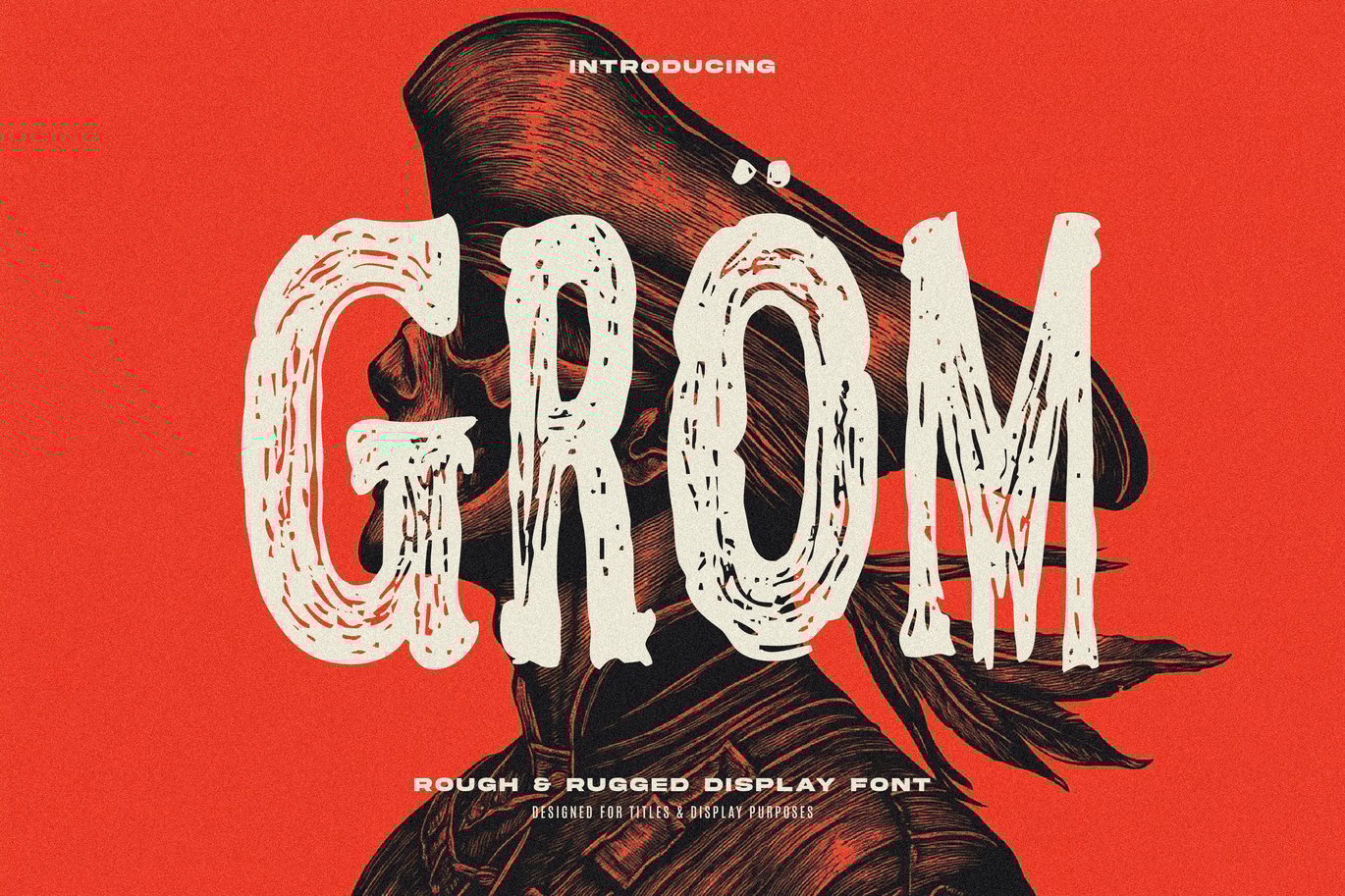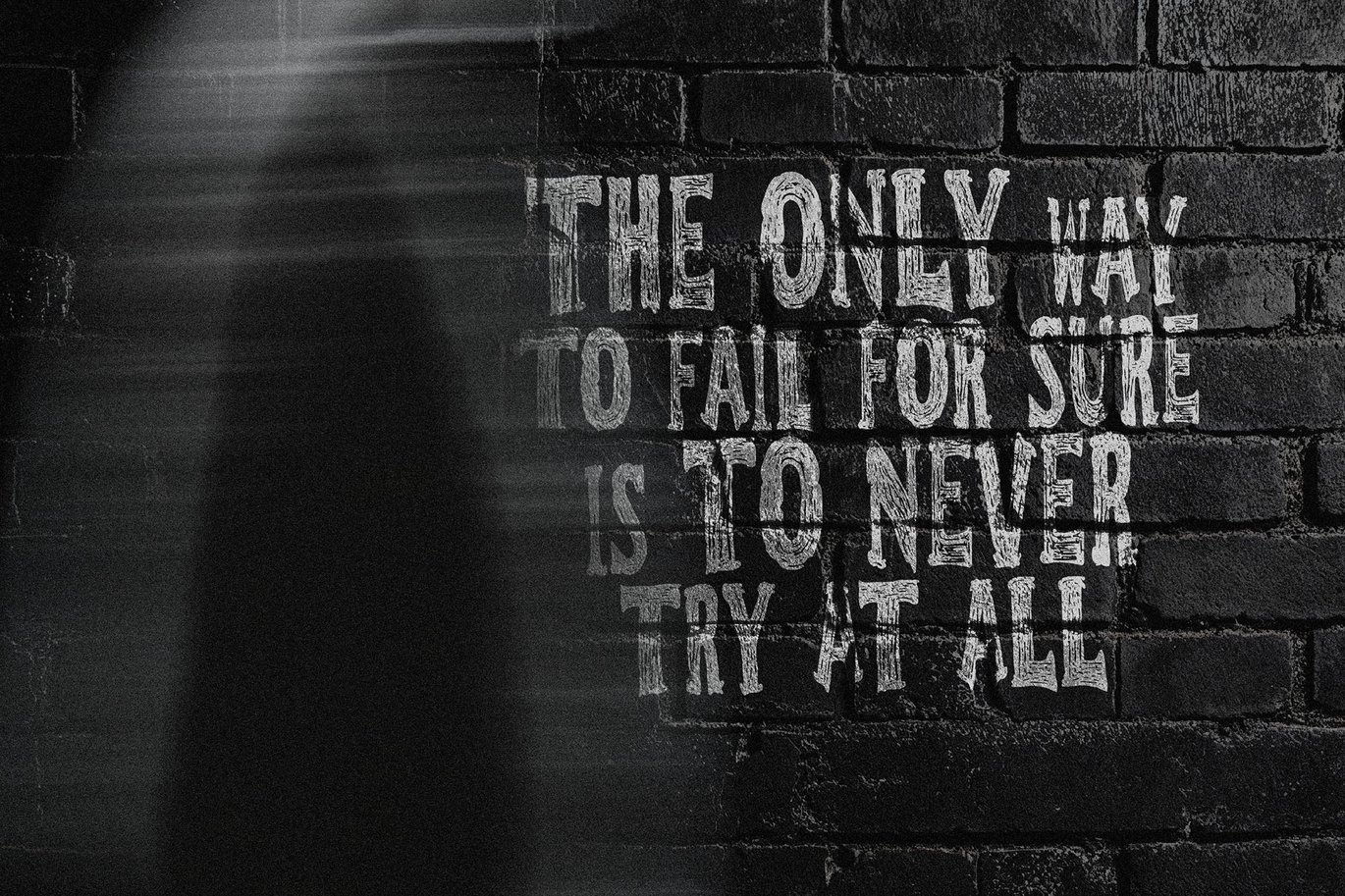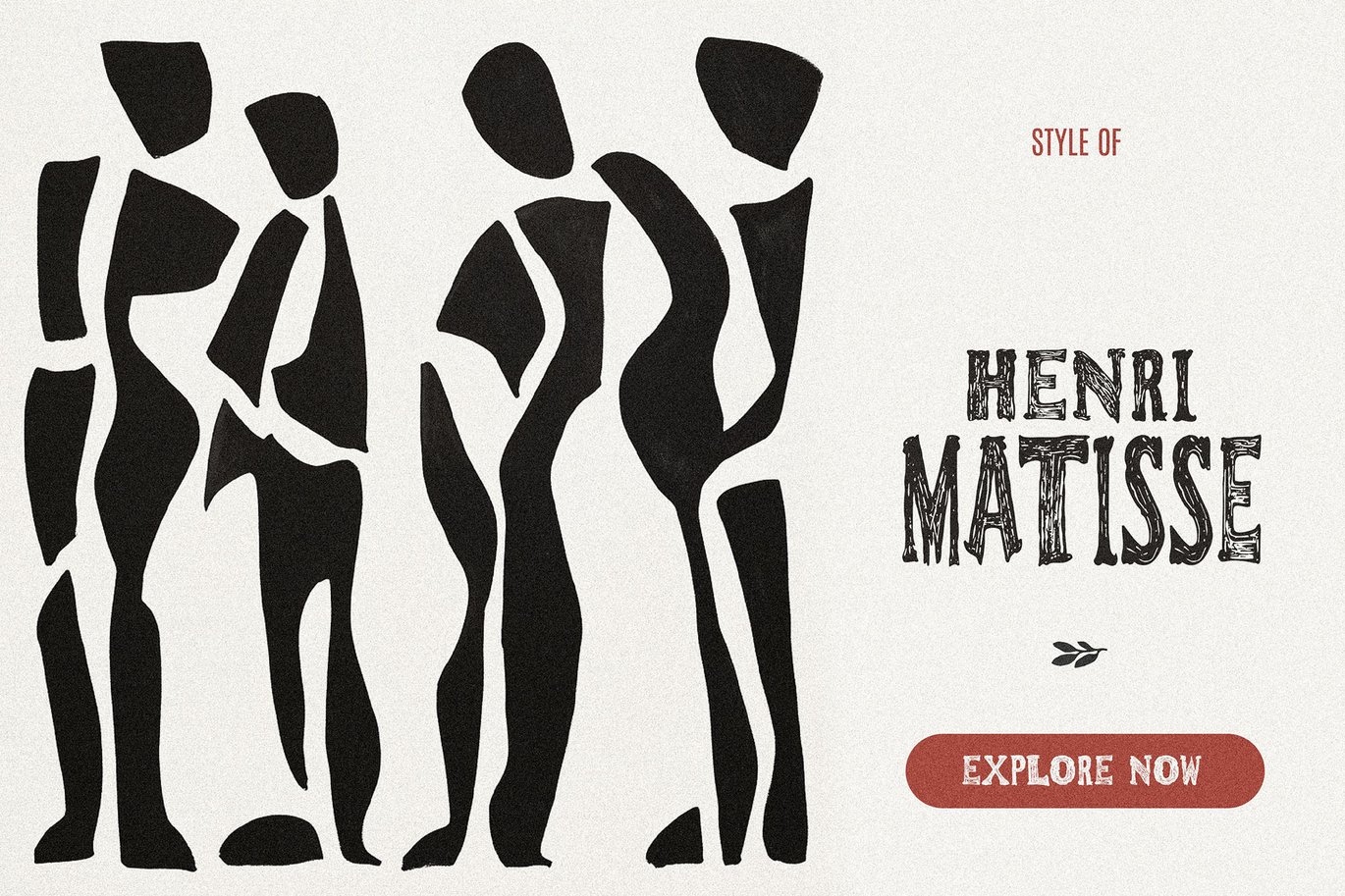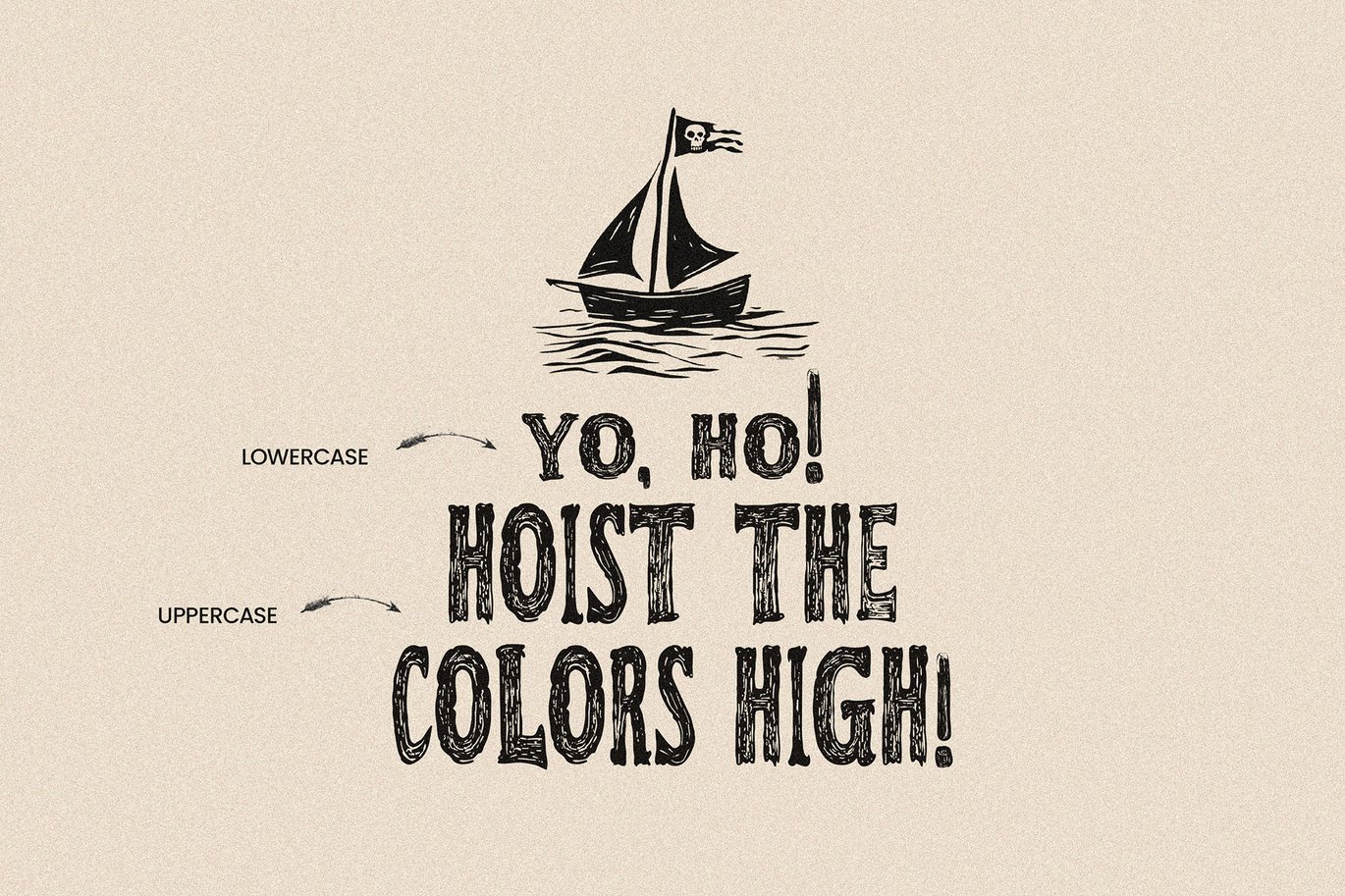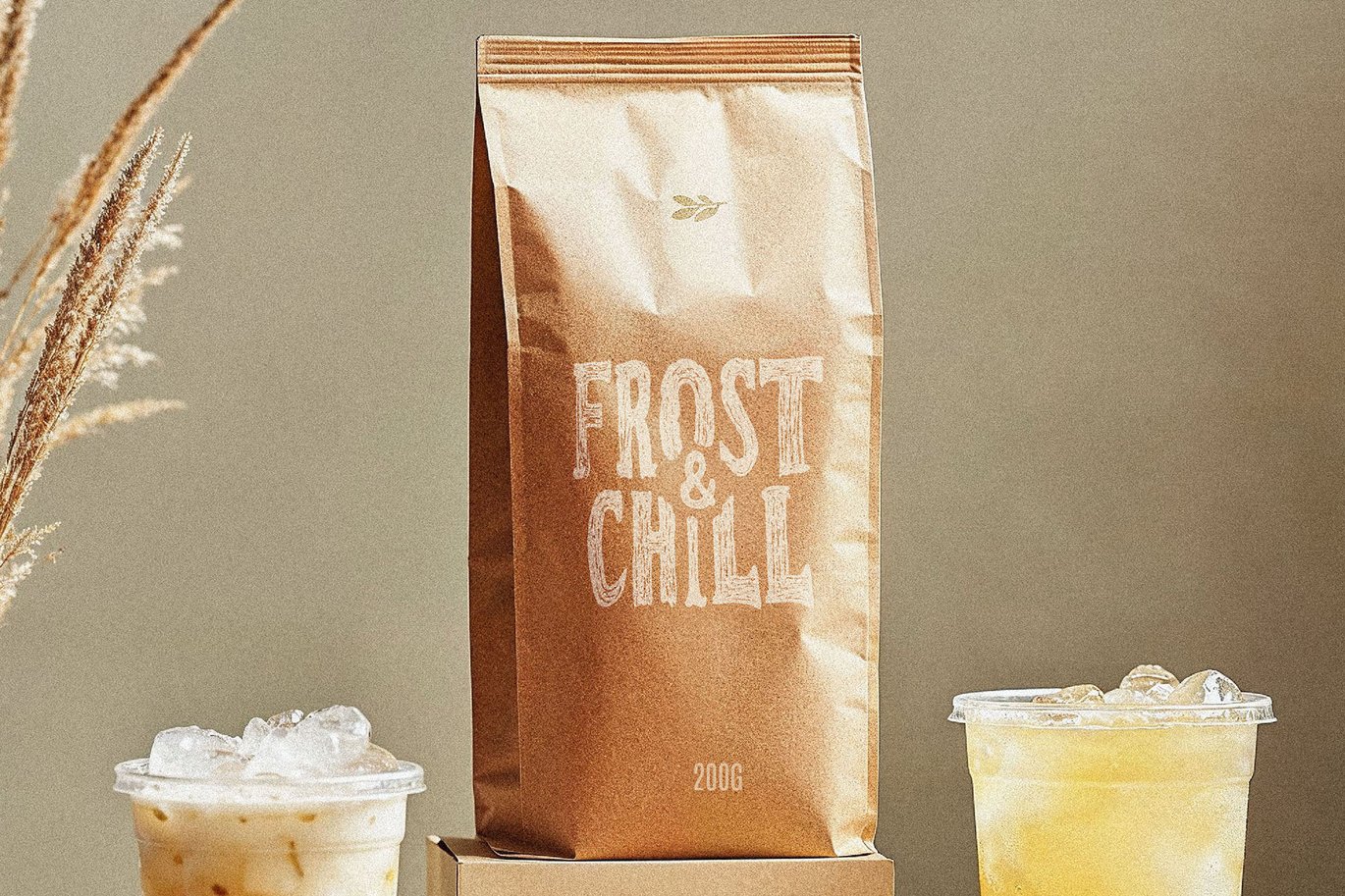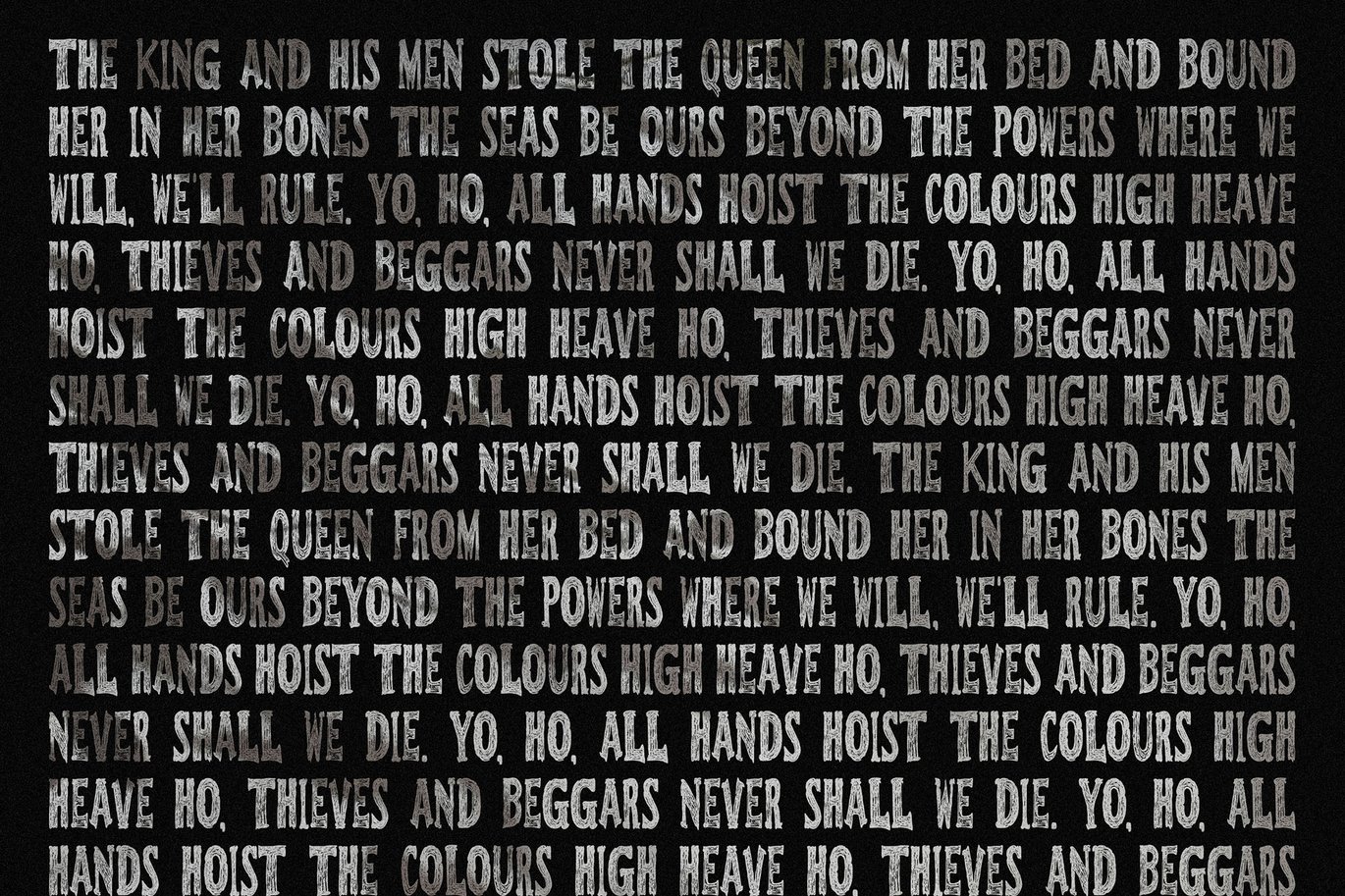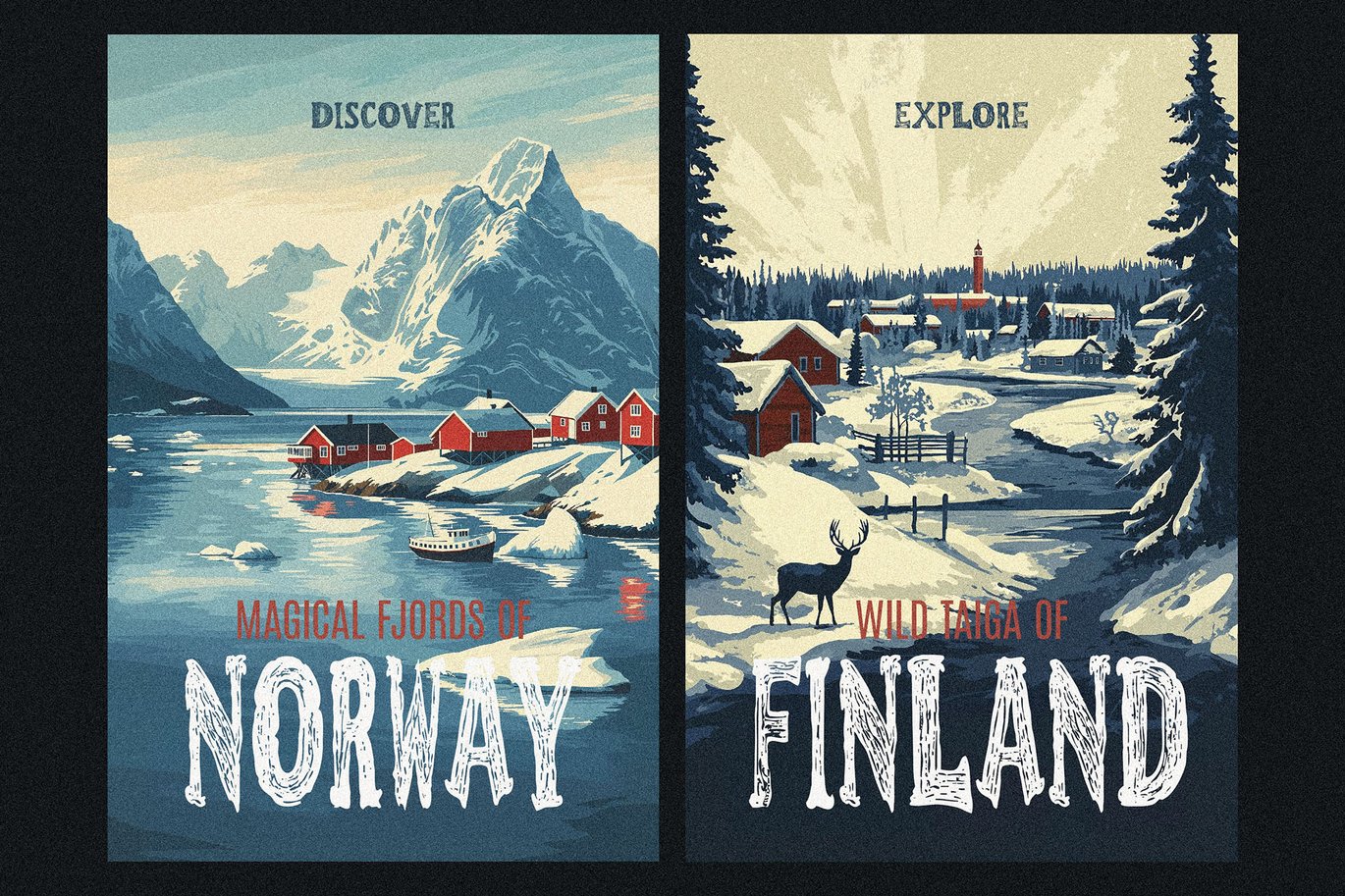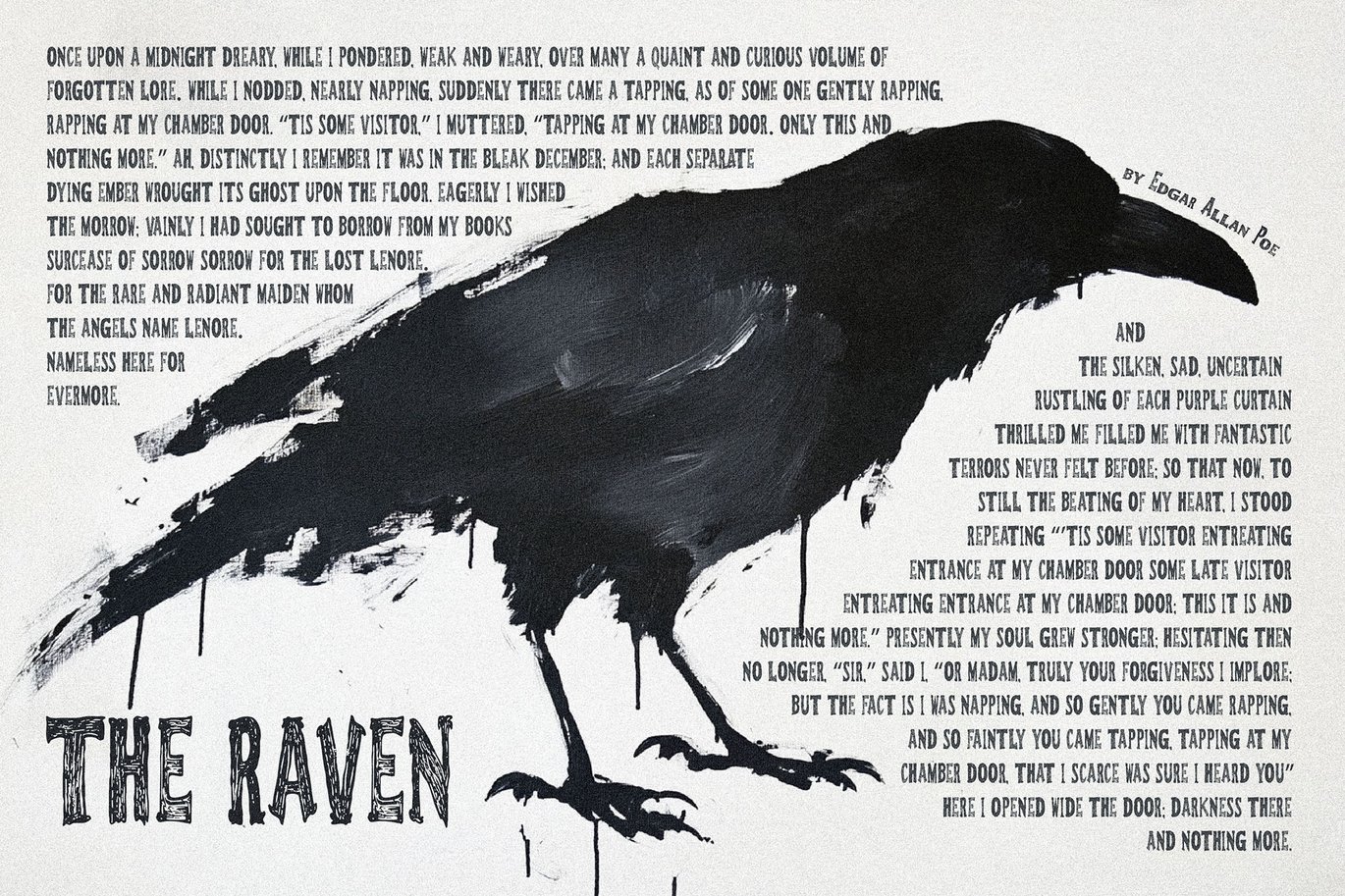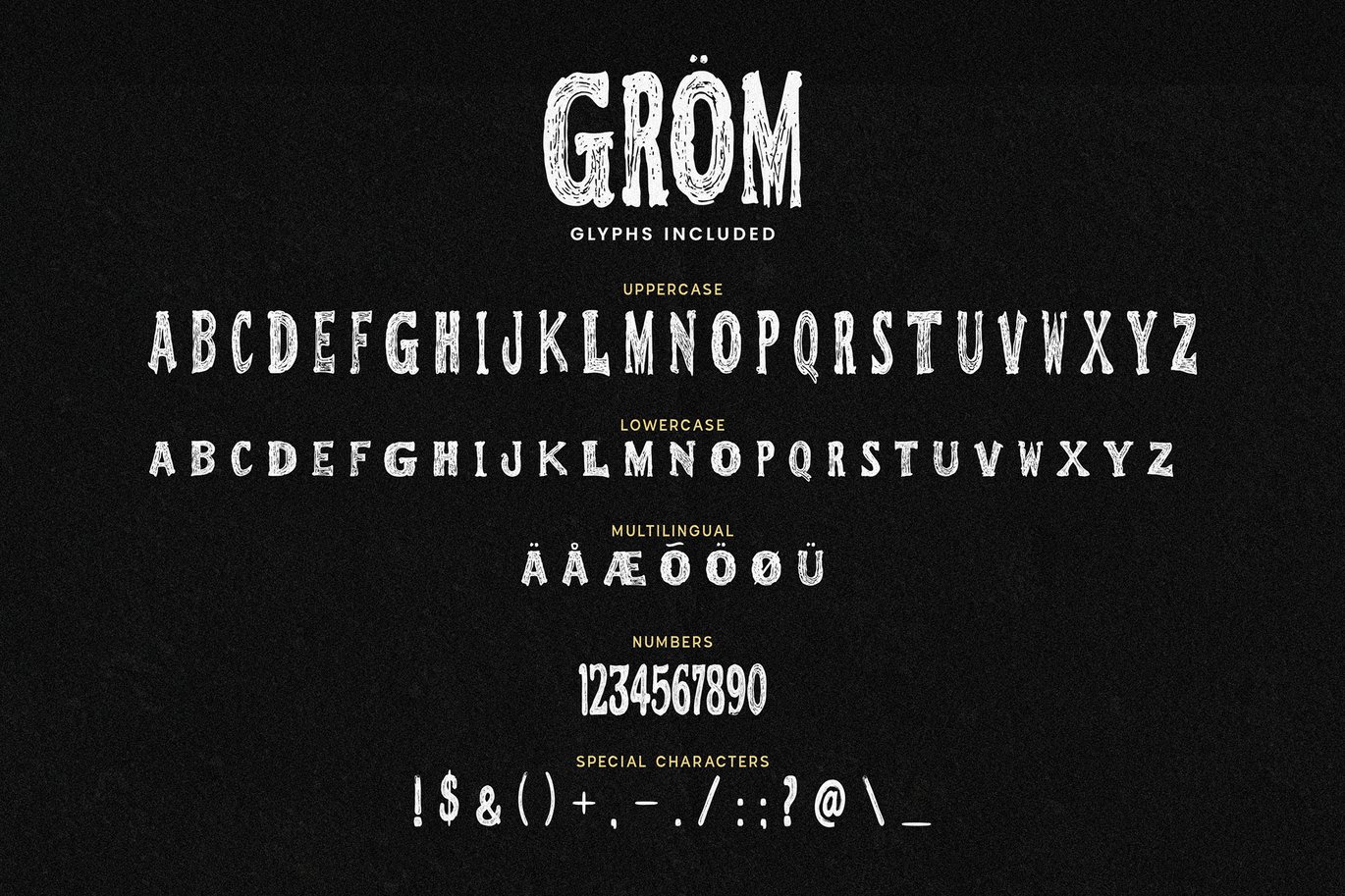
Gröm – Tall Grunge Display Font
Introducing Gröm – a tall and rugged display.
With its bold letterforms and distressed styling, Gröm captures the enduring spirit of the great outdoors, so it fits well for all kinds of adventurous designs.
When your design calls for a formidable, larger-than-life look, answer with Gröm. This towering typeface brings rugged texture and bold attitude to headers, logos, and display usage of all kinds.